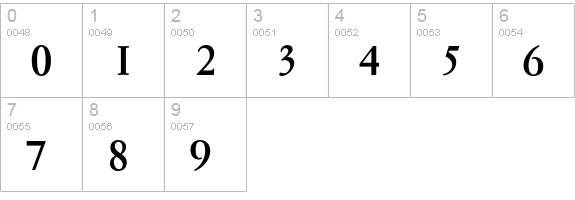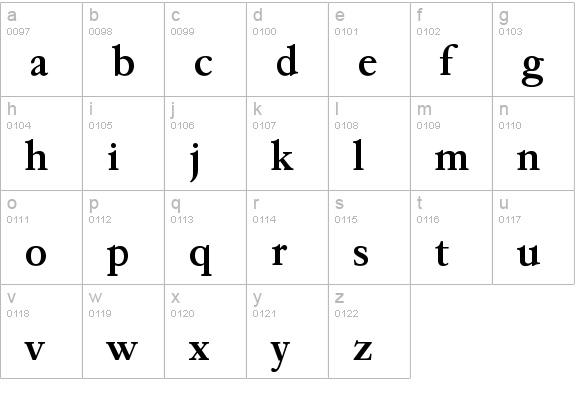
Garemond-Medium is a balanced, medium-weight variant in the Garemond typeface family \xE2\x80\x94 well suited to sub-headlines, navigation, and balanced editorial work.
Garemond-Medium font is a versatile and modern typeface that exudes elegance and sophistication. With its clean lines and balanced proportions, Garemond-Medium is perfect for a wide range of design projects, from branding to editorial layouts. This font strikes the perfect balance between classic and contemporary aesthetics, making it suitable for both print and digital applications. What sets Garemond-Medium font apart is that it is available for free download at FontsMarket.com. This means that designers and creatives can easily access this premium font without any cost, making it a valuable addition to any font library. Whether you're working on a professional project or a personal design, Garemond-Medium font is a versatile and high-quality typeface that will elevate your work to the next level.